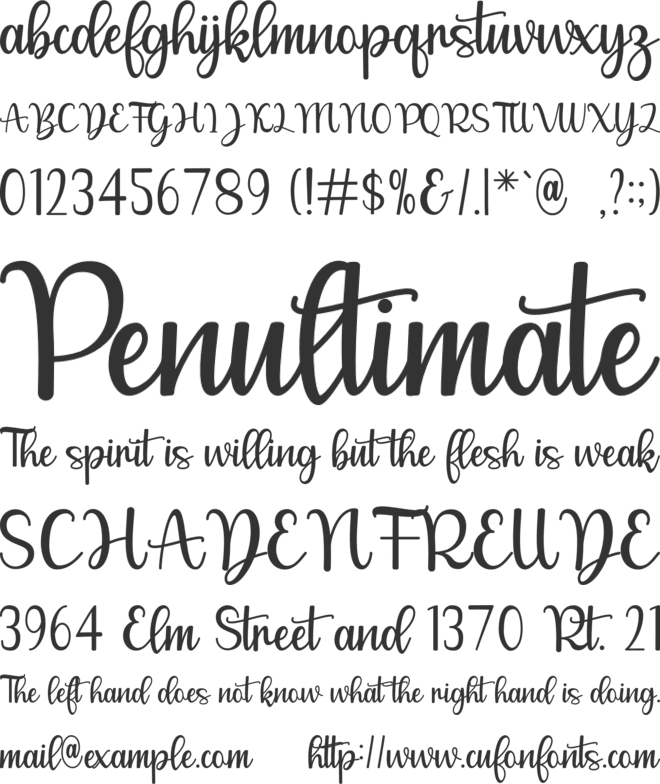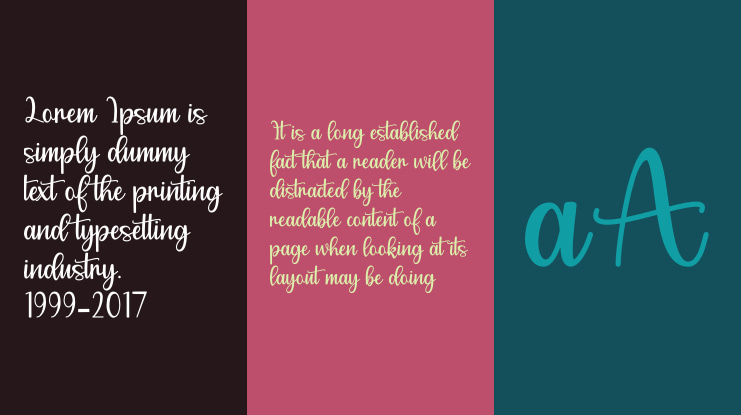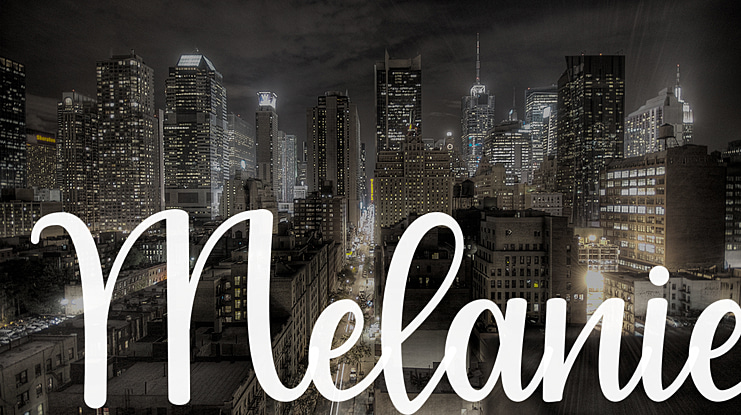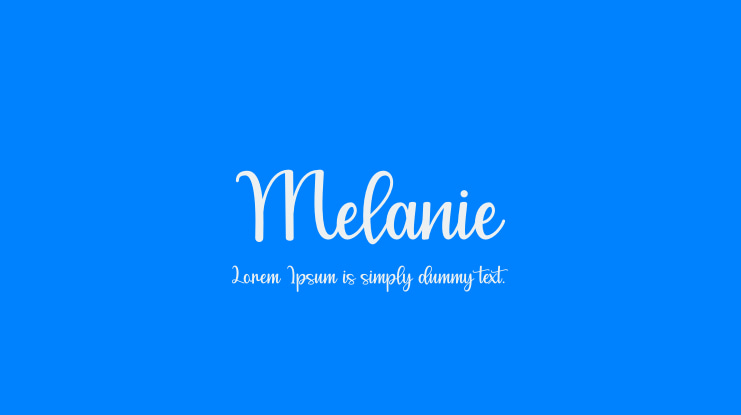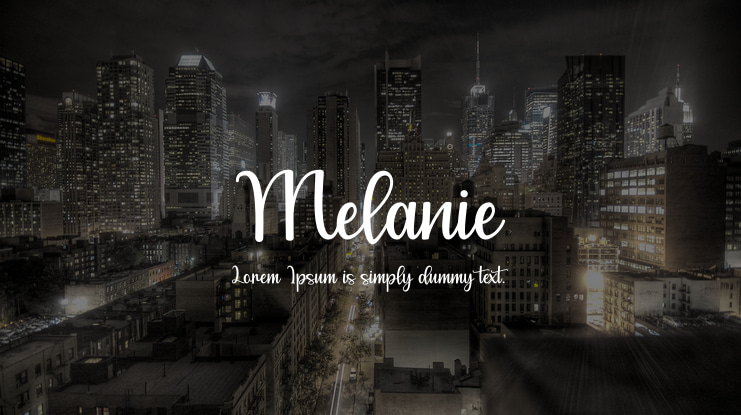
Melanie Font
This typeface designed by cavalera creative is a modern handdwriting design, including Regular. This font is casual and beautiful with swash. Whatever the topic, this font will be a wonderful asset to your font library, as it has the potential to enhance any creation. Melanie is PUA encoded which means you can access all of the glyphs and swashes with ease!